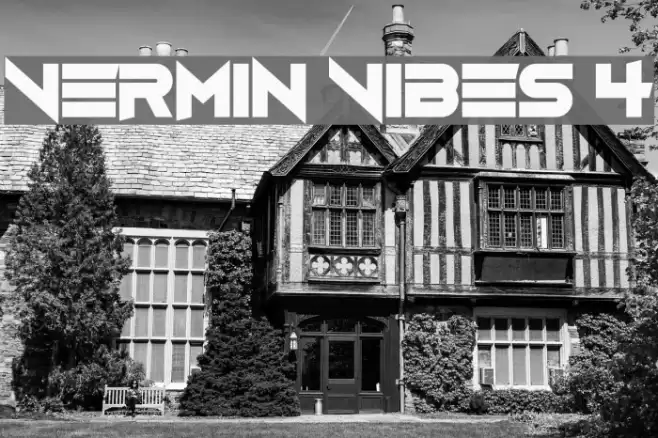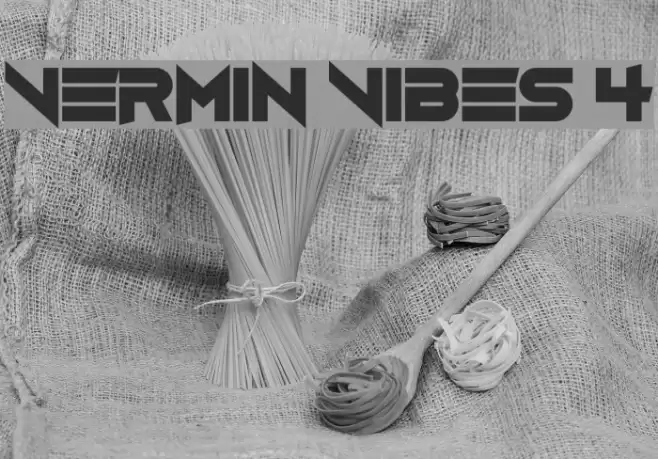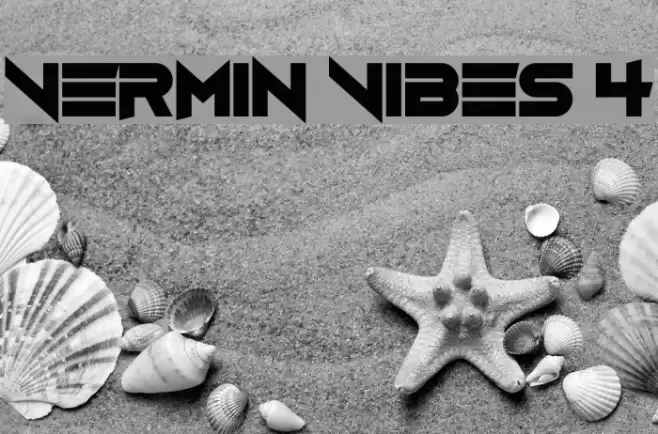
Vermin Vibes 4 Font
Vermin Vibes 4 Description
This font features a bold, geometric design with sharp angles and a futuristic aesthetic. The characters are constructed with solid, block-like shapes that convey a sense of strength and modernity. The uppercase and lowercase letters maintain a consistent style, with unique cuts and angles that add a dynamic feel. Numbers and special characters follow the same design principles, ensuring uniformity across all glyphs. The font's distinct style makes it ideal for projects that require a bold and impactful visual statement.
A bold, geometric font with a futuristic and dynamic design from Uncategorized fonts.
- Proposed Projects: Ideal for sci-fi themed designs, video game graphics, posters, and branding that requires a modern and bold look.
- Overall Style: Futuristic